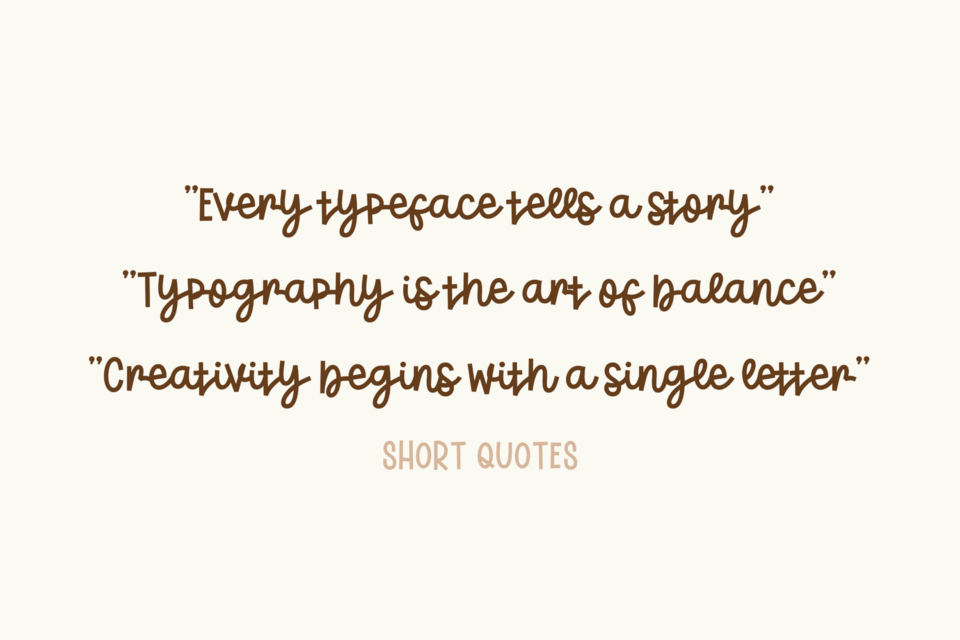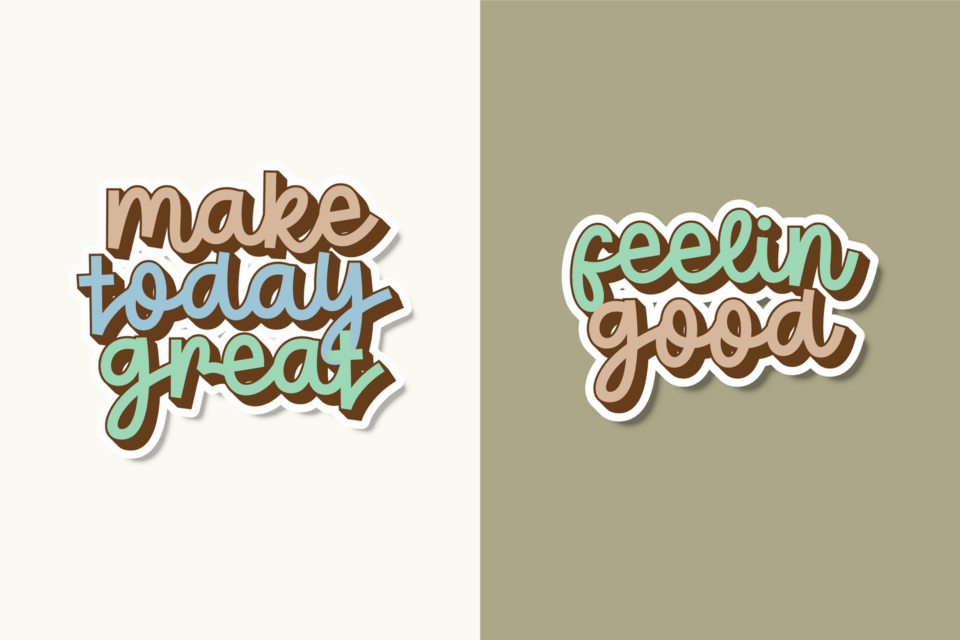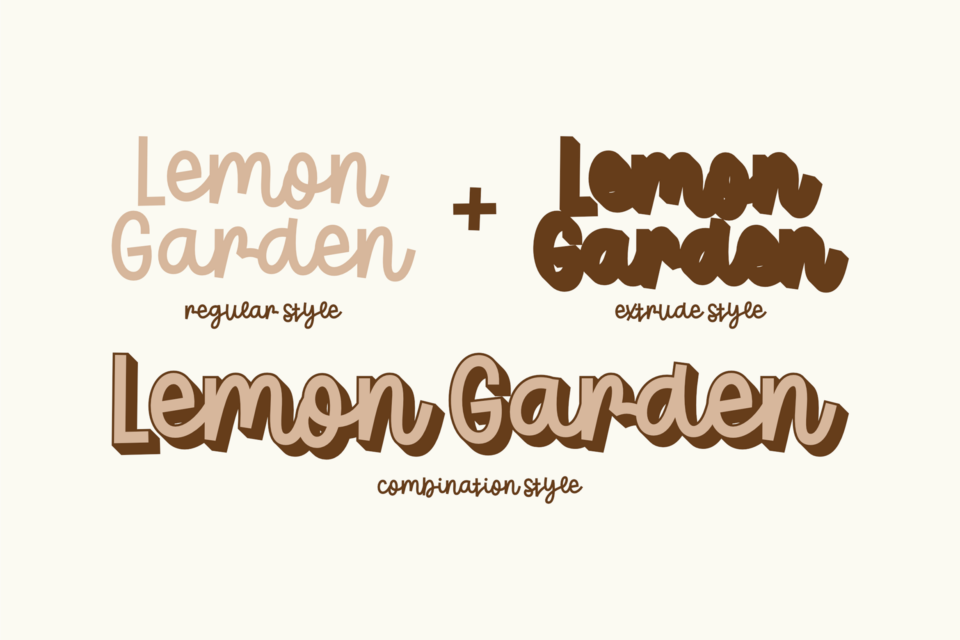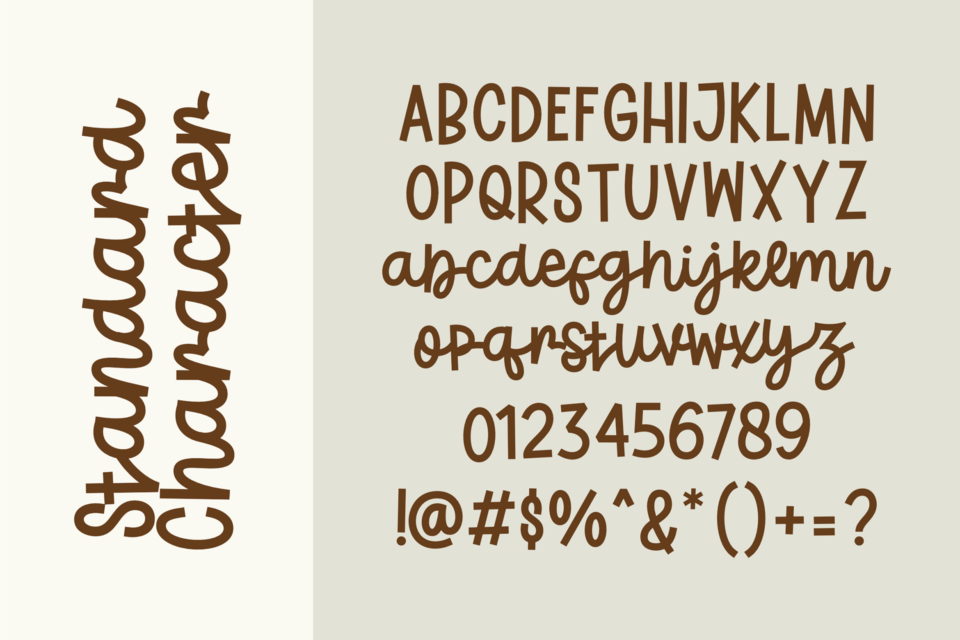
Lemon Garden is a cute and playful handwritten font that brings a fresh and cheerful vibe to your designs. With its smooth curves and bouncy style, this font is perfect for branding, invitations, posters, social media graphics, and more.
The layered 3D shadow effect adds depth and character, making your text stand out beautifully. Whether you’re working on a whimsical project or a fun-themed product, Lemon Garden will add a delightful touch to your typography